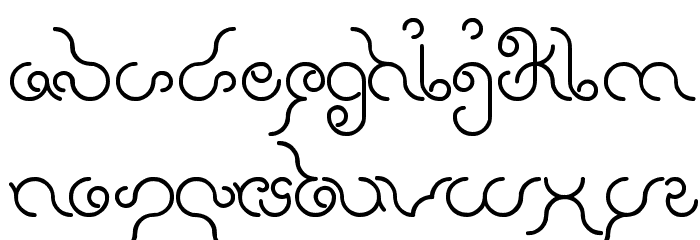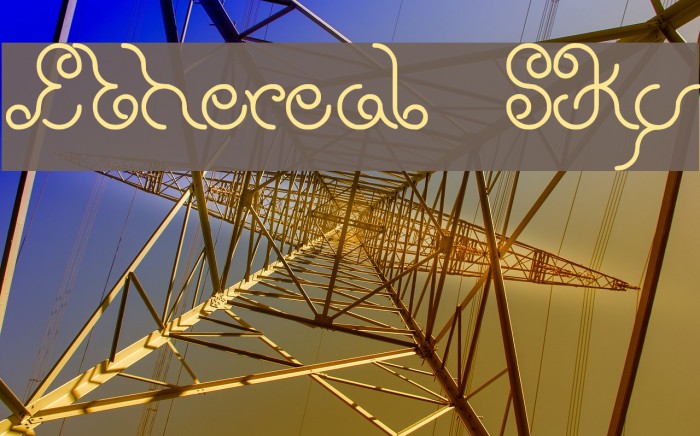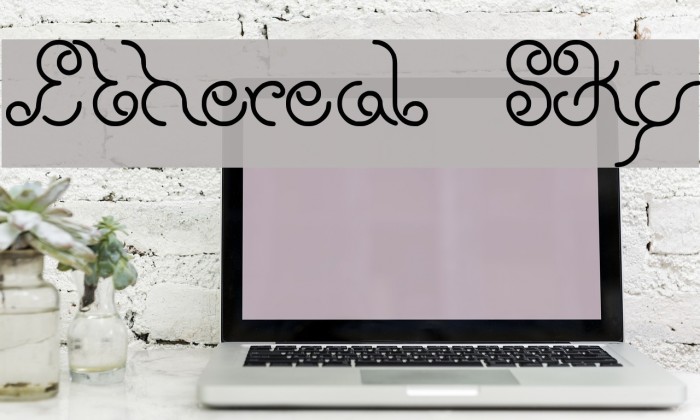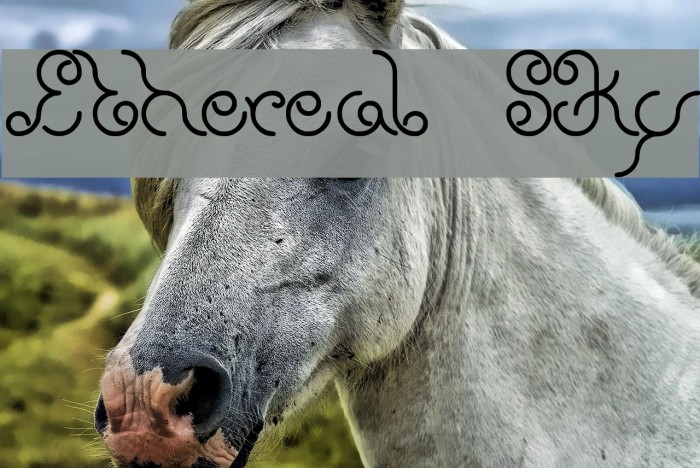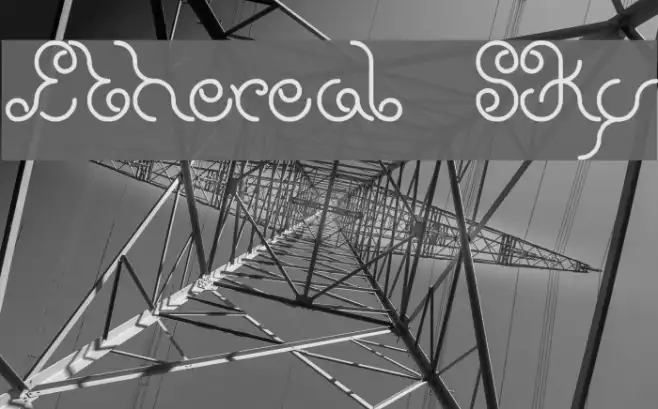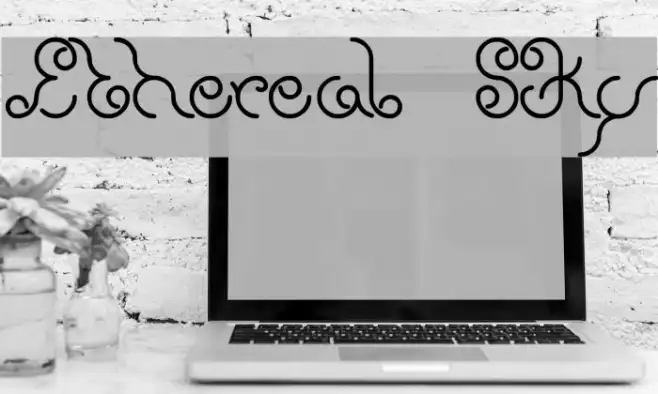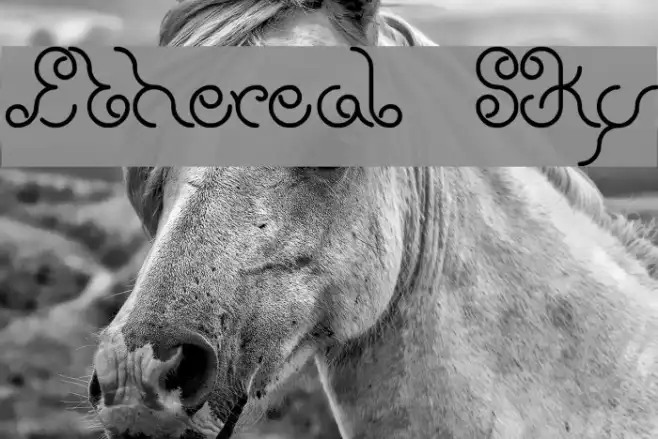
Ethereal Sky Font
This font features an intricate and whimsical design, characterized by its flowing curves and loops that give it an ethereal and artistic appearance. Each character is uniquely crafted with a sense of movement and fluidity, making it stand out as a decorative typeface. The letters are interconnected with elegant swirls, creating a sense of harmony and continuity throughout the alphabet. The overall design is reminiscent of calligraphy, yet it maintains a modern twist with its clean lines and balanced forms. This font is perfect for projects that require a touch of elegance and creativity, such as invitations, artistic posters, or branding materials that aim to convey sophistication and uniqueness.
A whimsical and artistic font with flowing curves and elegant swirls.
- Proposed Projects: Ideal for invitations, artistic posters, branding materials, and any project requiring a touch of elegance and creativity.
- Use Case: Headlines, Artistic projects, Invitations